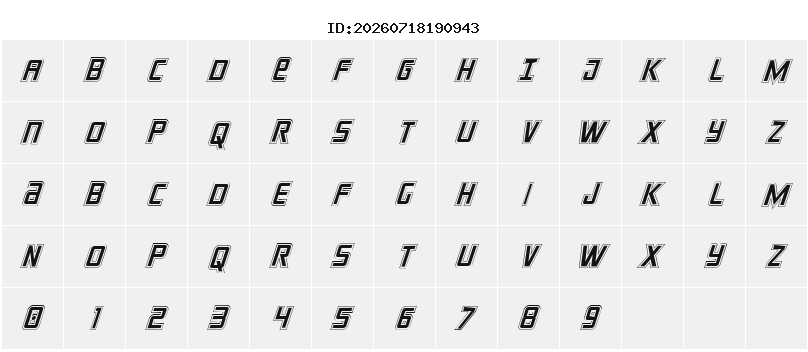
• Font Name: Crixus Academy Italic
• Full Font Name: Crixus Academy Italic
About Crixus Academy Italic.ttf
Crixus Academy Italic.ttf is a modern, elegant sans-serif font designed for ultimate readability and visual harmony. Perfect for branding, headlines, web design, and print materials.